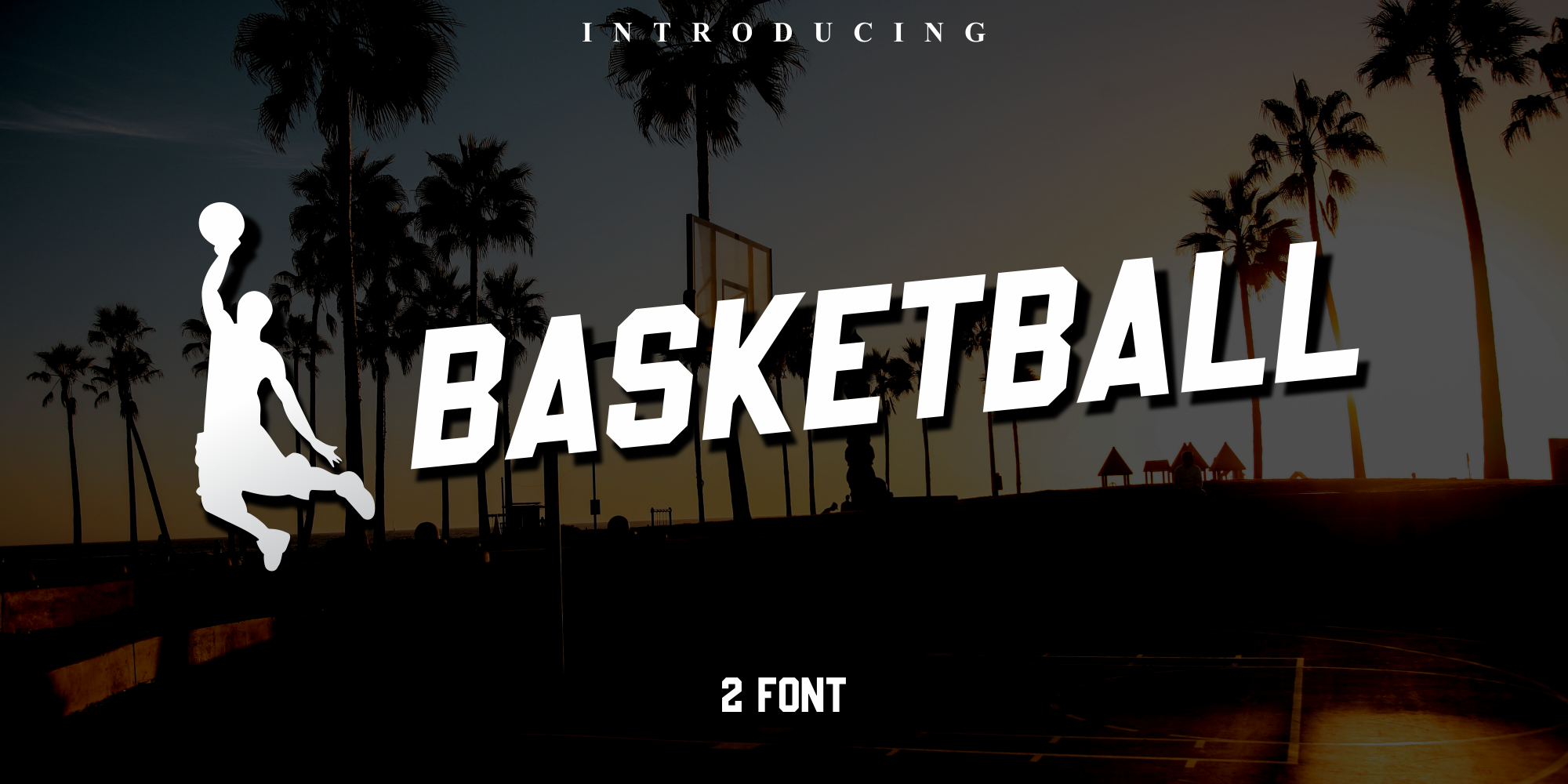
Basketball Font is excellent for professional team branding, sports merchandise design, basketball arena signage, athletic equipment packaging, youth league communications, sports bar marketing, basketball camp promotions, athletic scholarship materials, championship event graphics, and competitive sports advertising.
What makes Basketball Font exciting is its dynamic athletic energy that perfectly captures the explosive power and competitive intensity found in professional basketball and street court culture. This typeface features bold letterforms with court-tested proportions and slam-dunk details that evoke the adrenaline rush and championship spirit of fast-break action and clutch-time performance. The font's competitive personality and basketball authenticity make it ideal for sports brands seeking to convey excellence, teamwork, and the winning determination that comes from dedication to athletic greatness and basketball mastery.
Basketball Font family includes championship weight variations and athletic alternatives that enhance its sports appeal while providing design flexibility for basketball and athletic applications. The font features slam-dunk ligatures, court-inspired ornaments, and championship character variations that create authentic basketball atmosphere for sports and athletic branding.
Sports organizations and athletic brands consistently choose Basketball Font Free Download for projects requiring authentic basketball appeal and competitive credibility. The font's championship character excels in applications targeting athletes, basketball fans, and sports enthusiasts who appreciate genuine athletic excellence and competitive spirit. Whether you're designing for professional teams, youth leagues, or basketball equipment companies, this dynamic typeface delivers the basketball authenticity and athletic excellence that resonates with audiences seeking genuine sports performance and the championship mentality that defines basketball greatness and competitive athletic achievement.